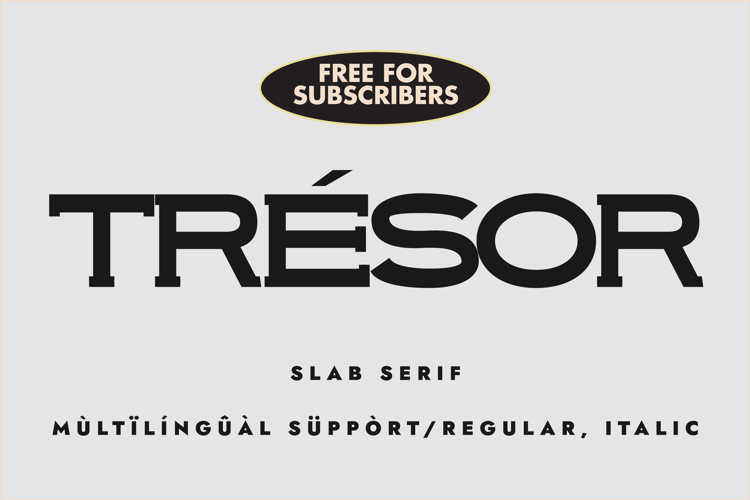
TRESOR Font
🎨 Font Name: TRESOR by Minimalist Art Studio
🎨 Font Description: TRÉSOR is a sophisticated slab serif with multilingual finesse and golden weight, ideal for branding, packaging, and editorial prestige.
✔ Complete Latin set + multilingual diacritics
✔ Alternates, stylistic sets & ligatures
✔ Numbers, small caps, and extended punctuation
✔ Bonus italics and family styles